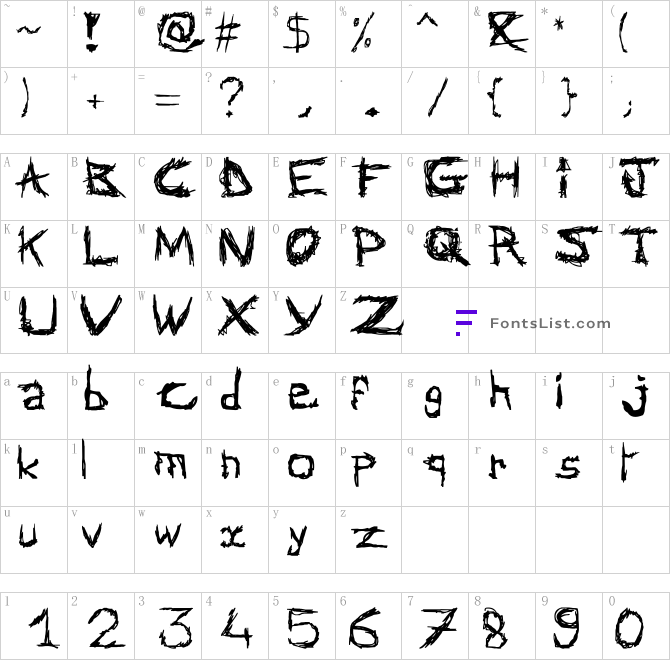
- Font Name:AbstractClassicFont
AbstractClassicFont.ttf is a very beautiful artistic font, AbstractClassicFont.ttf is widely used in the design and printing of various books and pictures,AbstractClassicFont.ttf has a strong visual impact,AbstractClassicFont.ttf is a commonly used font in newspapers, magazines and books, and is used in posters, e-commerce Poster design, store design, logo design, font design and other fields.AbstractClassicFont.